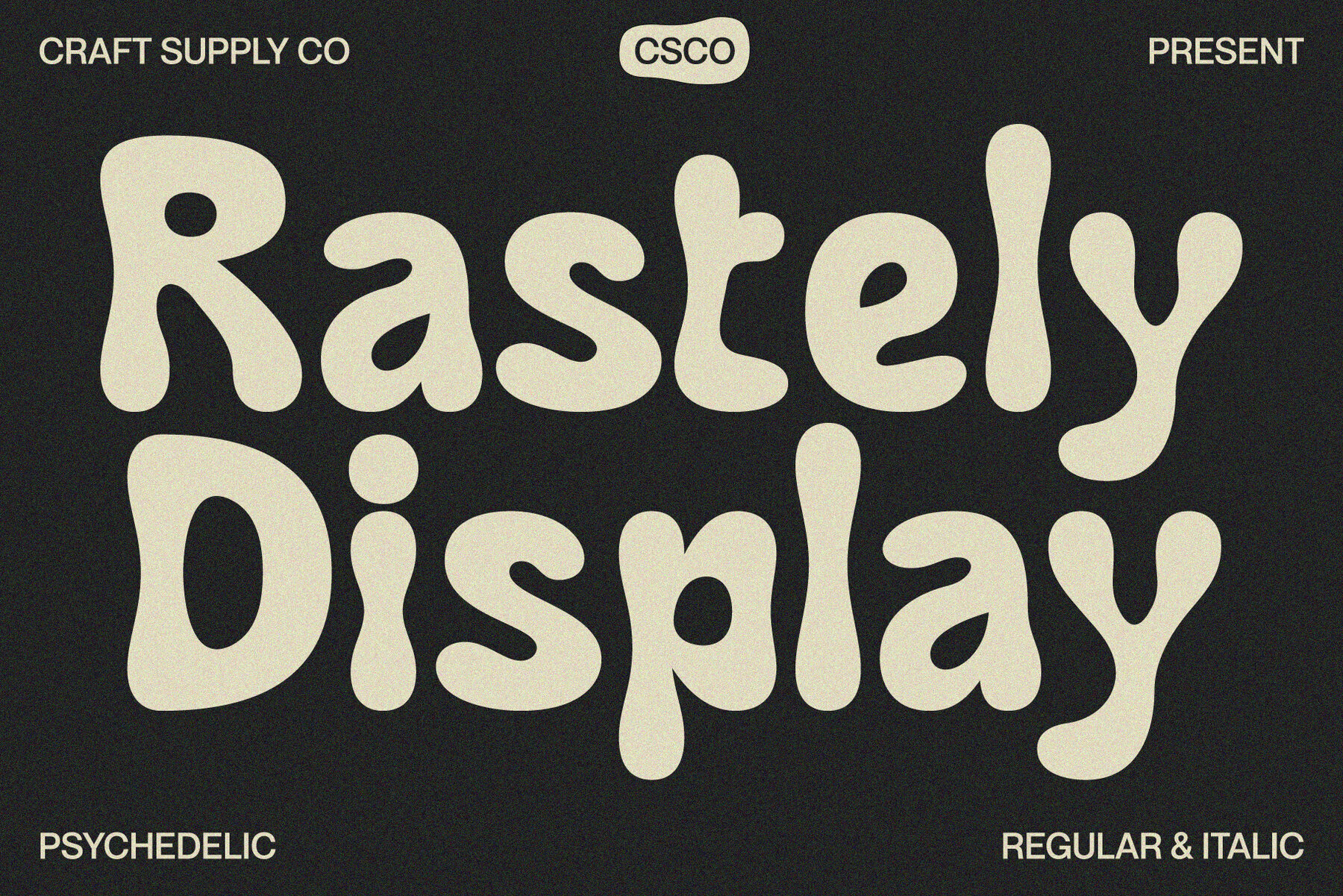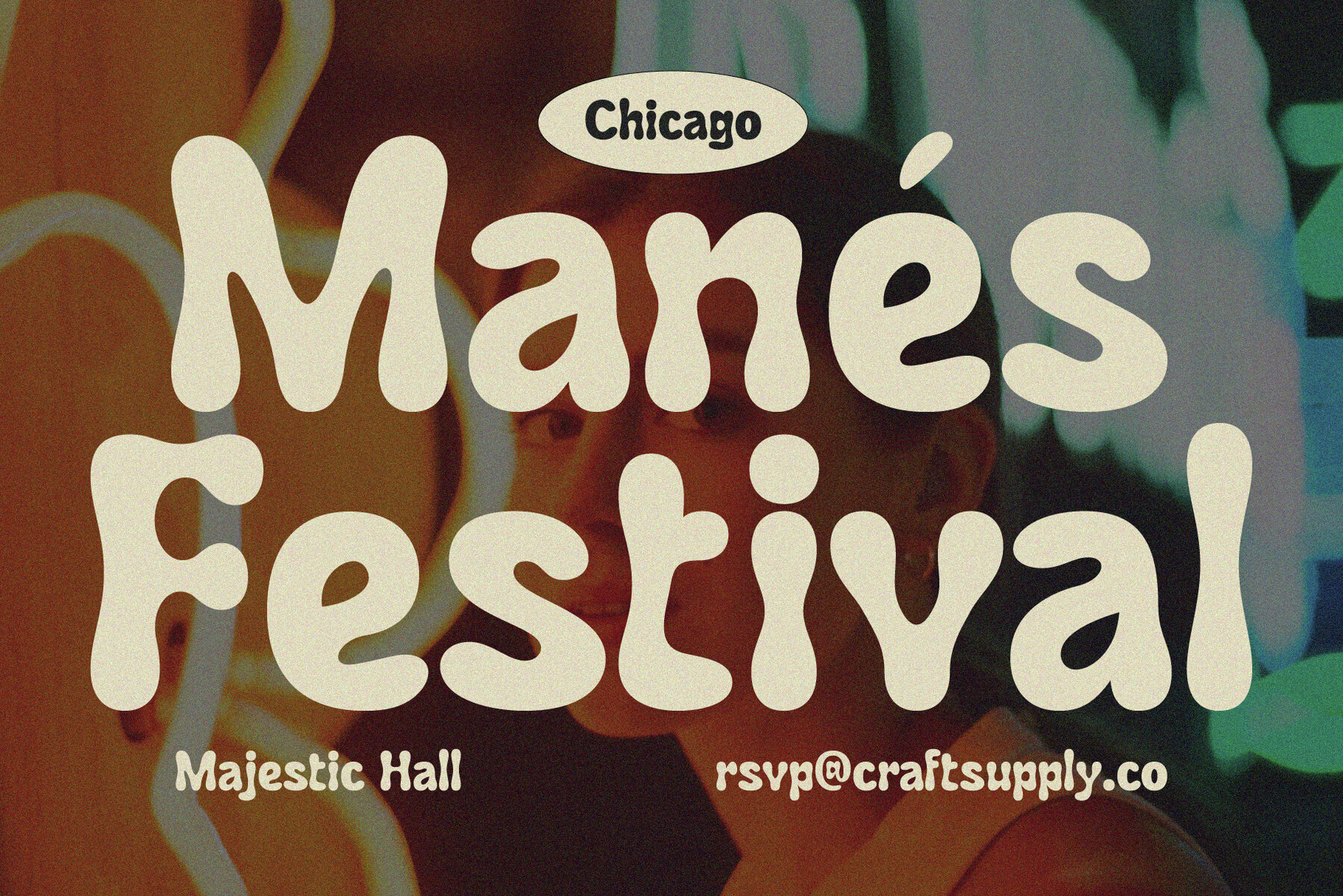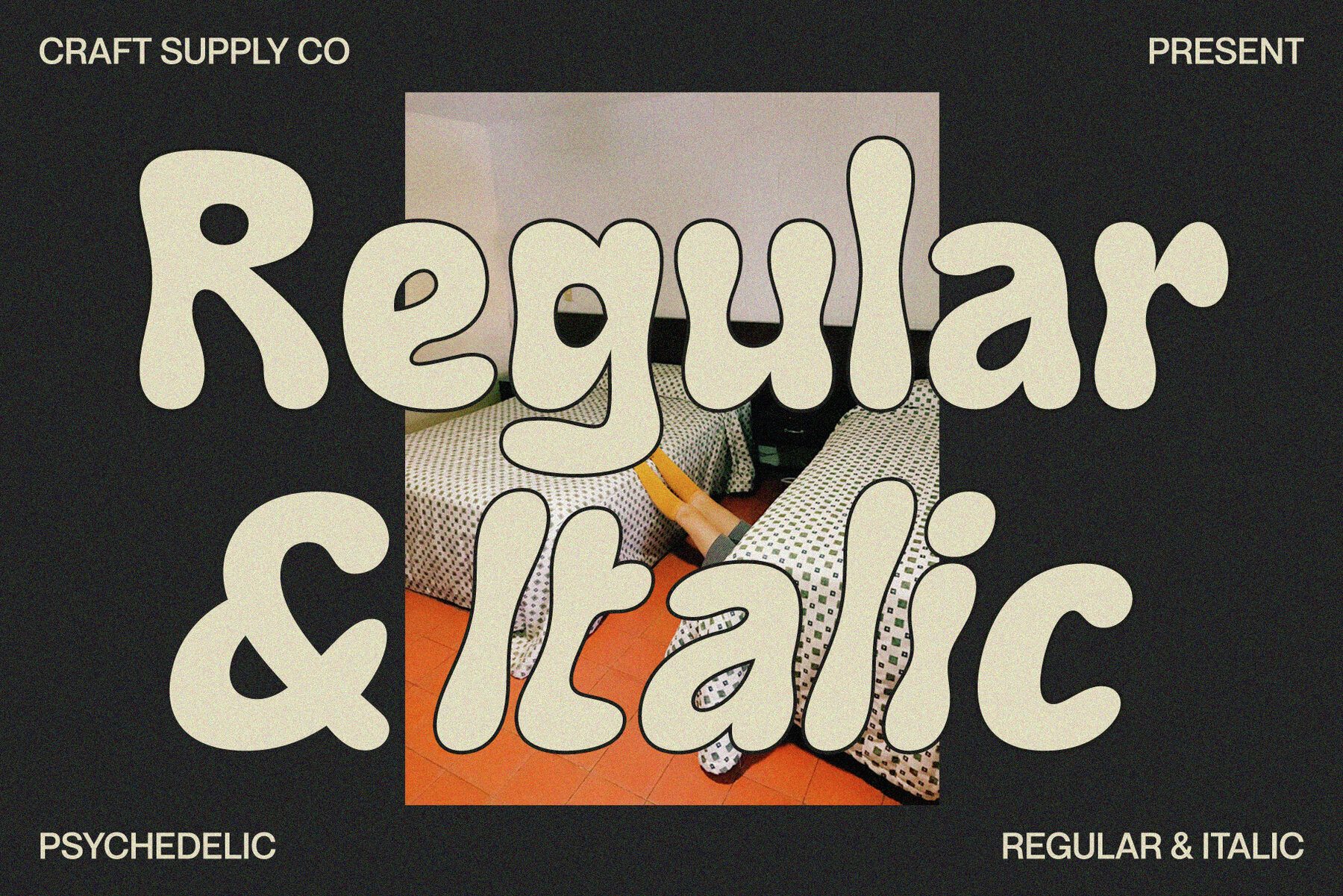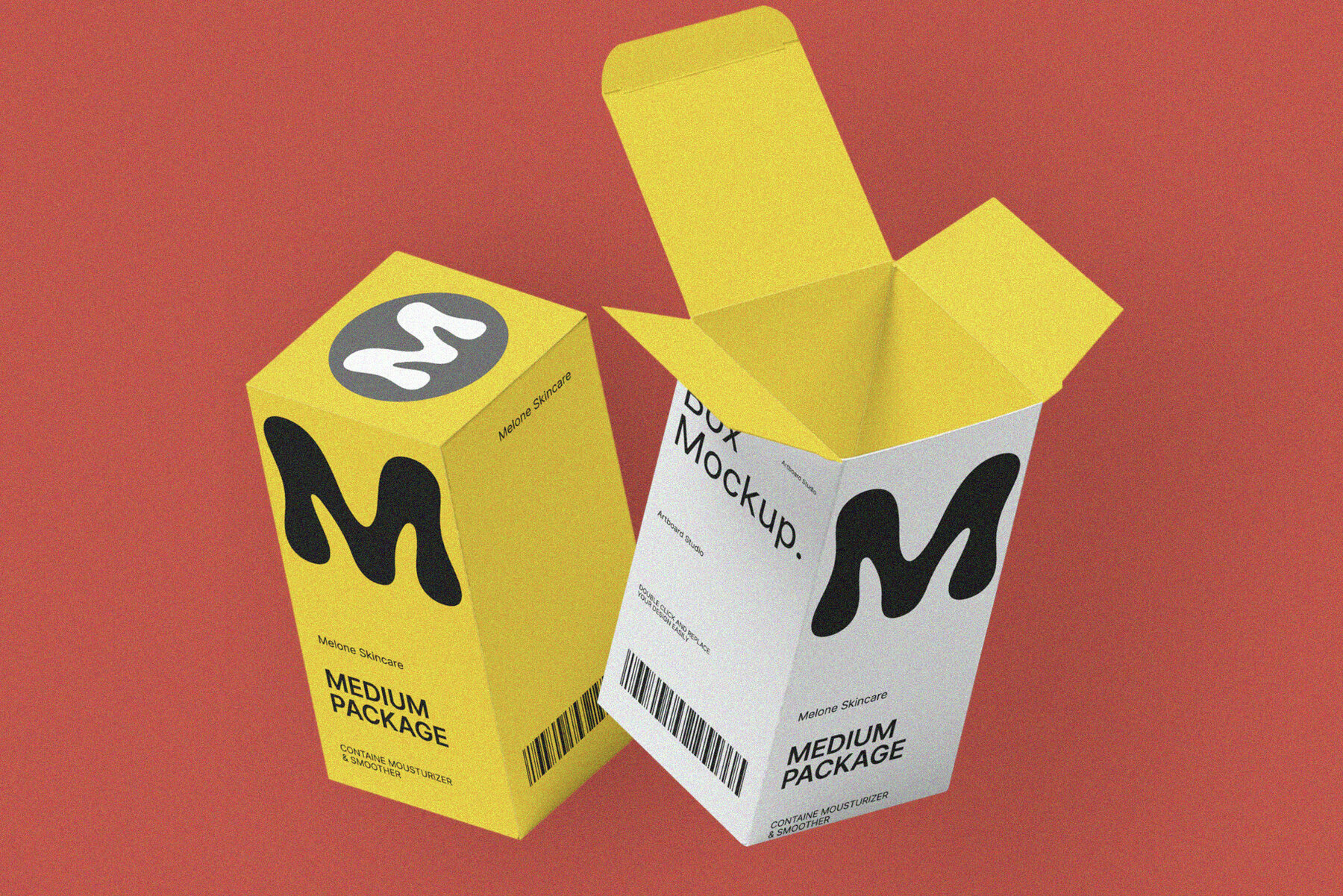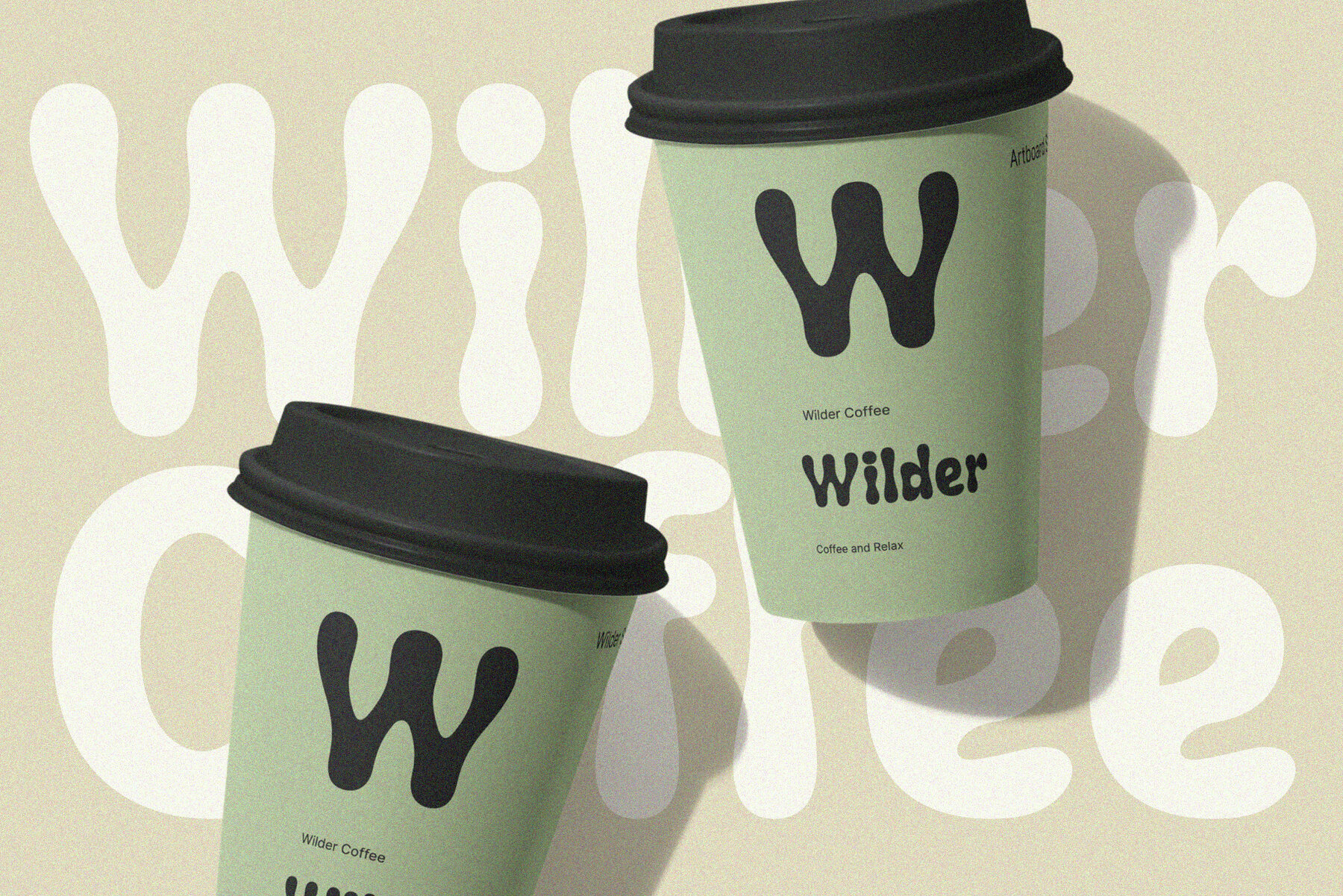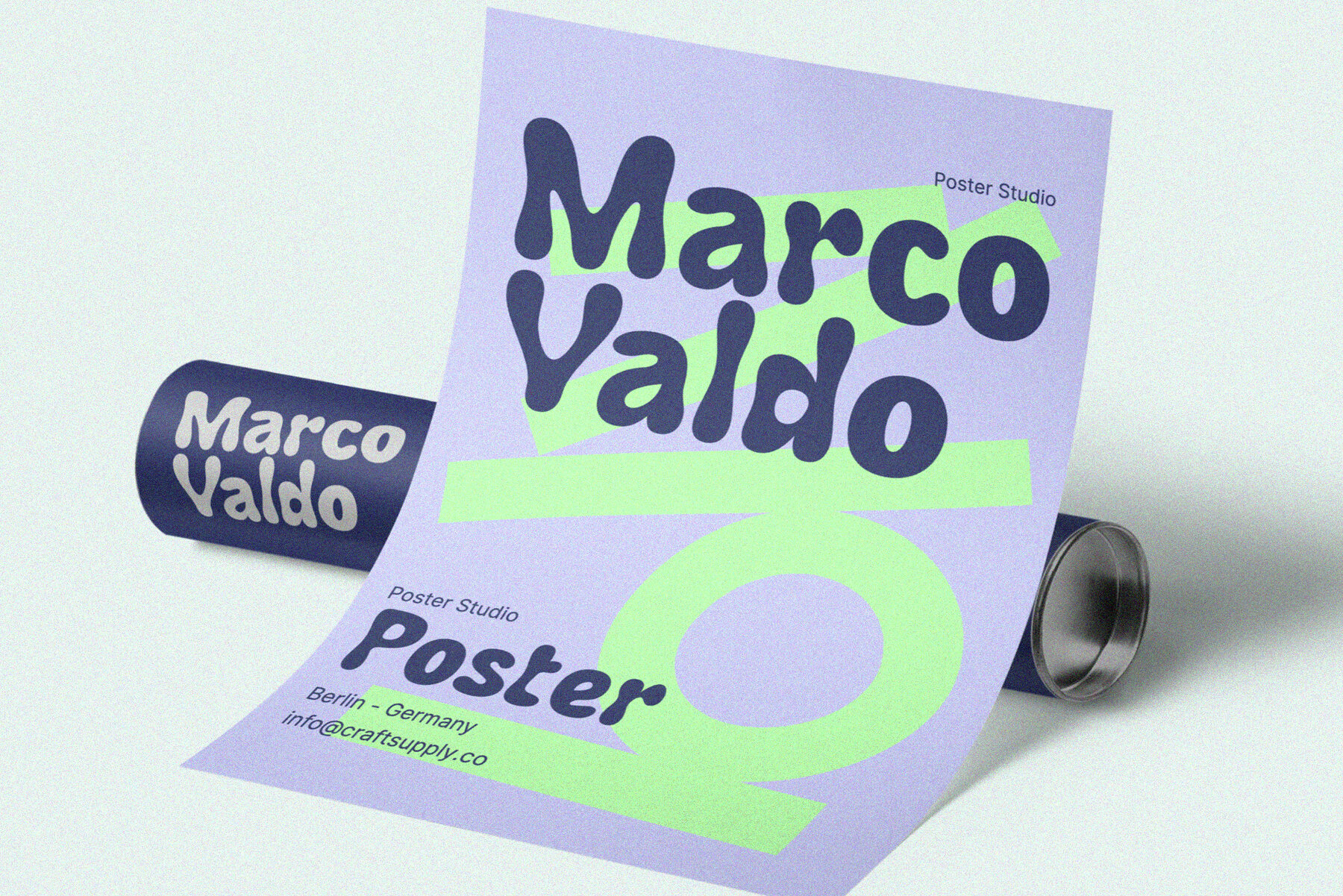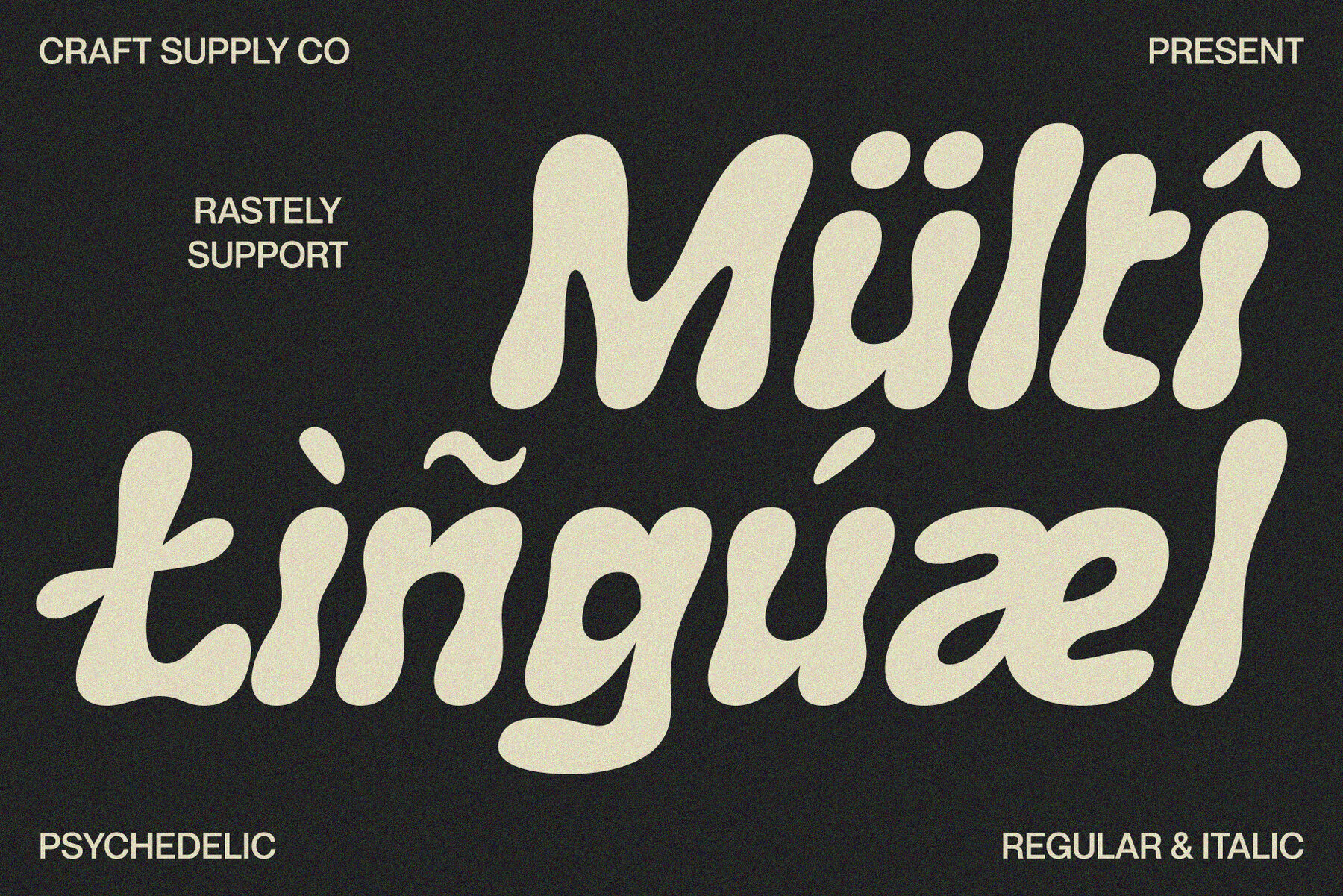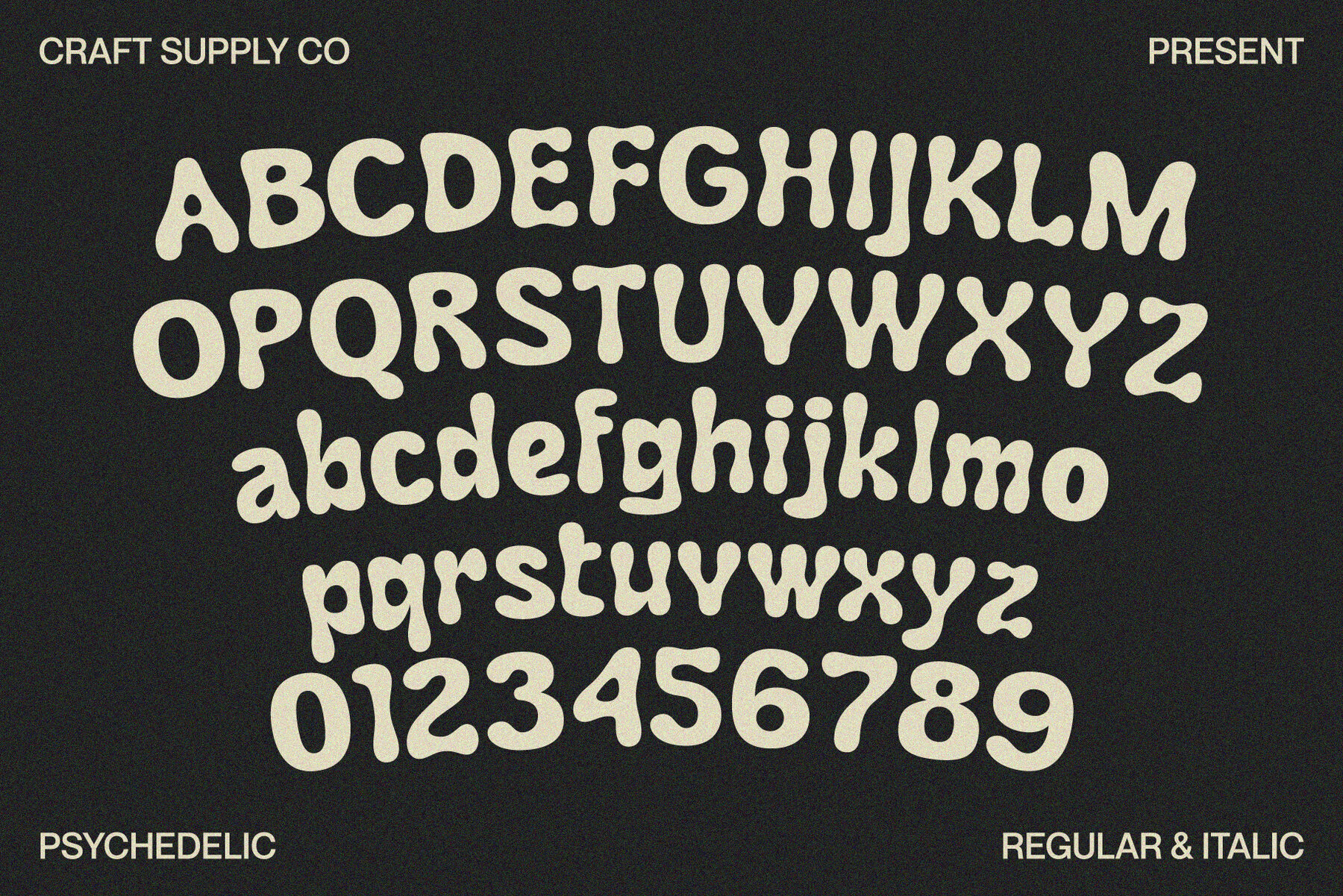
Rastely Font
Experience the joy of creativity with Rastely, a funky typeface designed for those inspired by psychedelic vibes. This font's playful curves add a cheerful touch to any project, promising a fun visual experience at first sight. Rastely invites you to a visual party with its relaxed yet bold design. Each character tells a unique story, adding whimsy to your projects. Its easy legibility makes it suitable for audiences of all ages, ensuring your message is both engaging and accessible. Brighten up any project effortlessly with Rastely. Whether it's flyers, logos, or branding, this typeface offers versatility that makes your messages stand out both in print and on screens. It's as friendly and inviting as a sunny day, ensuring your designs leave a lasting impression.Rastely: Funky Typeface with Playful Curves
Playful to the Core
Cheerful Design, Versatile Use